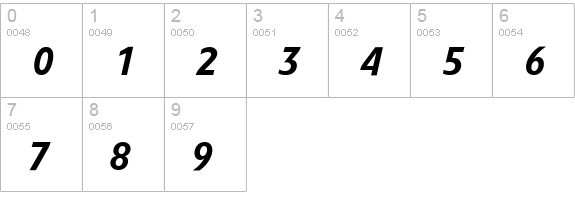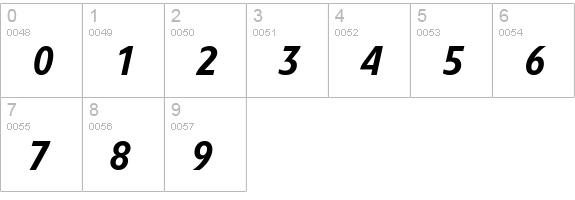
Evo kursiv halbfett font is a modern and sleek typeface that exudes elegance and sophistication. The combination of bold and italic styles in this font makes it perfect for creating eye-catching headers, titles, and logos. Its unique design adds a touch of flair to any project, making it stand out from the crowd. What sets Evo kursiv halbfett font apart is that it is available for free download at FontsMarket.com. This means that you can easily access this stylish font and use it in your designs without any cost. Whether you're working on a professional project or a personal creative endeavor, Evo kursiv halbfett font is a versatile choice that will elevate your work to the next level. Try it out today and see the impact it can make on your design projects!